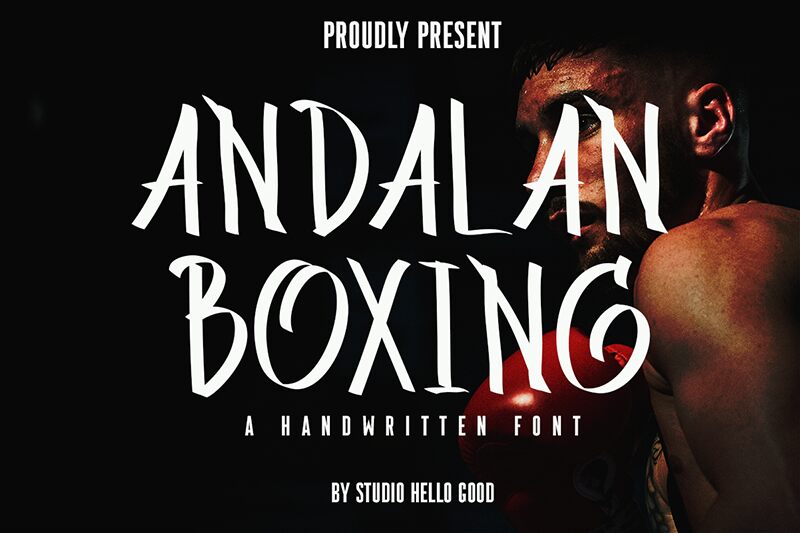
Andalan Boxing
Andalan Boxing font by Studio Hello Good is a free handwritten font that breathes life and personality into your projects. Its casual, relaxed appearance marries perfectly with an organic flow and touches of artistic flair, offering modern character suitable for contemporary use in creative branding and personal projects.